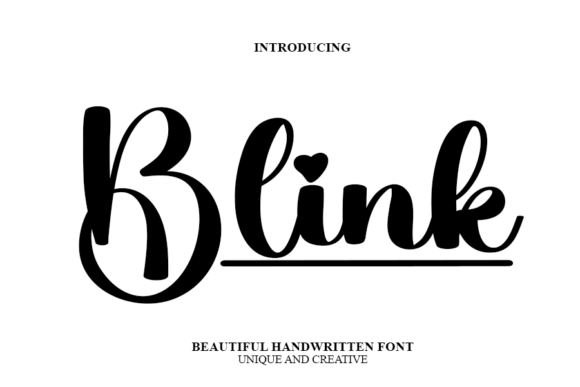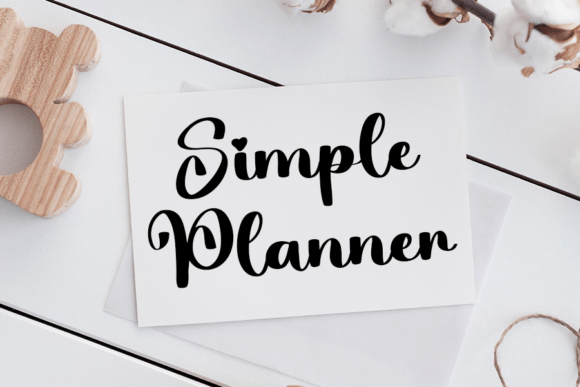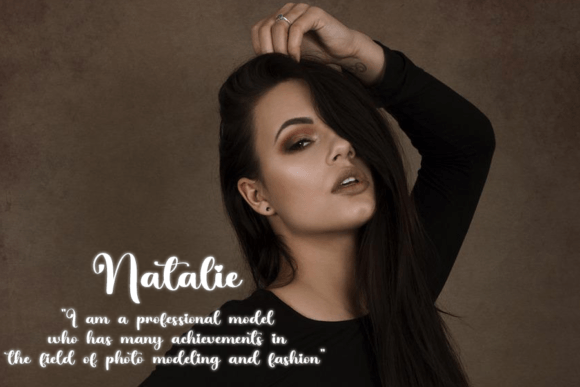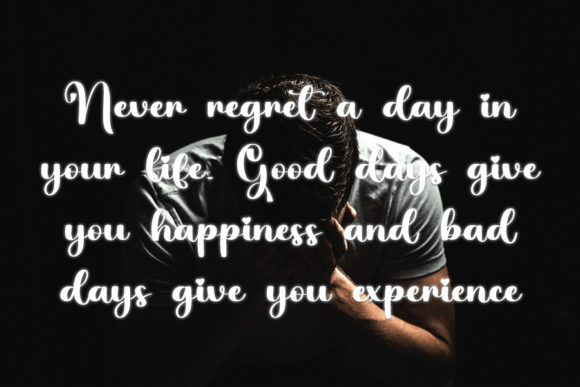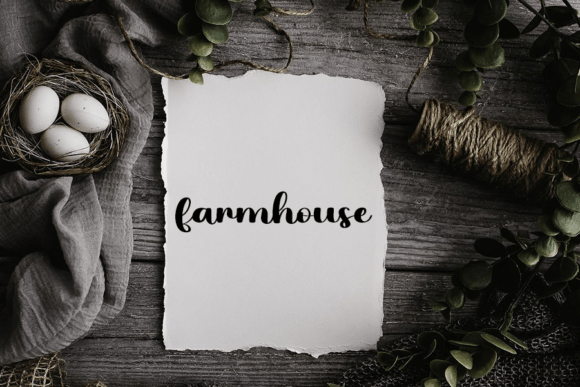
About Blink Font
Introducing “Blink” – Your Cool Handwritten Font for Modern and Beautiful Projects!
“Blink” is not just a font; it’s a versatile and stylish handwritten typeface designed to elevate the beauty of a wide range of design projects. Whether you’re working on modern branding initiatives, creating stylish invitations, designing sleek product packaging, crafting trendy labels, developing chic magazine layouts, or any other creative endeavor, “Blink” is the perfect choice to add a touch of contemporary elegance.
With “Blink,” you gain access to a font that strikes the ideal balance between thin and thick strokes, offering a varied and balanced form that enhances the aesthetics of your text. Its modern vibe and spotless form add a sense of sophistication to your content, ensuring that your projects look stunning across various mediums.
Imagine using “Blink” to create contemporary branding materials that exude elegance, crafting invitations that resonate with style and modernity, designing product packaging that stands out with its chic aesthetics, developing labels that communicate a sense of trendiness, or embarking on any creative project where a cool handwritten font is desired. This font’s adaptability and modern beauty make it an ideal choice for a diverse array of design projects.
Whether you’re a seasoned designer seeking a cool handwritten font or someone new to design looking to enhance the beauty of your projects, “Blink” is your ultimate typeface.
Don’t miss the opportunity to infuse your creative projects with a touch of modern elegance. “Blink” is here to assist you in crafting beautiful and contemporary designs that captivate your audience. Add it to your font collection today and experience the transformative power of its cool handwritten style in your creative endeavors!